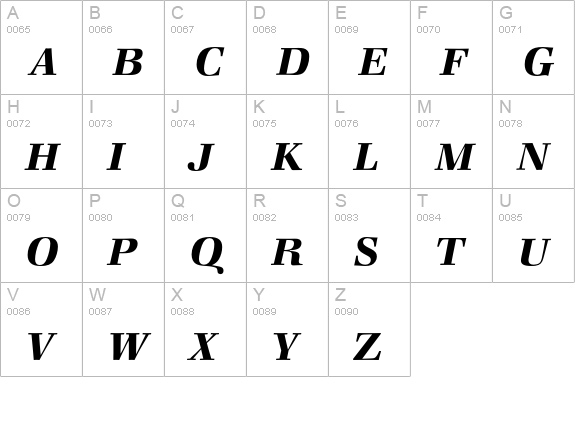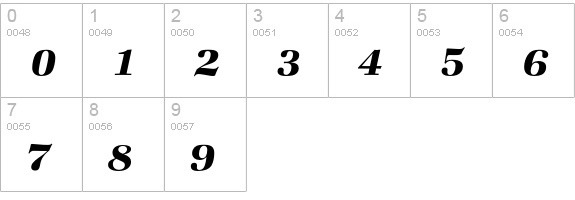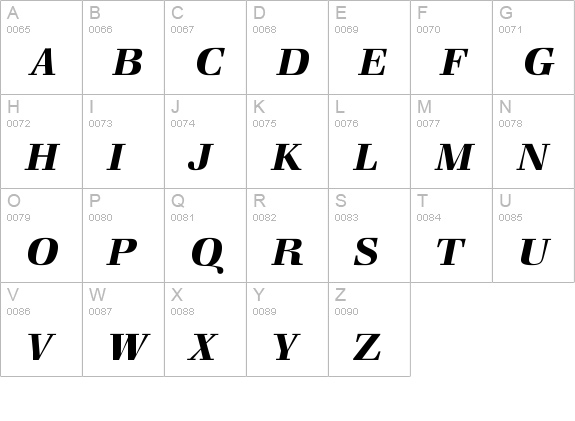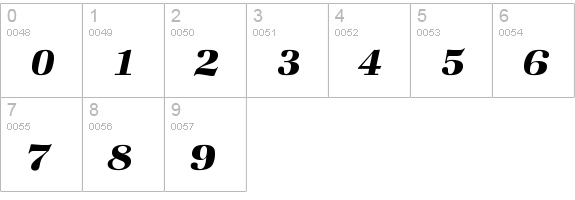
ZapfBookEF-DemiItalic font is a stylish and elegant typeface that exudes sophistication and charm. With its unique combination of boldness and grace, this font is perfect for adding a touch of class to any design project. The slanted italic style adds a dynamic flair, making text stand out with a sense of dynamism and energy. What sets ZapfBookEF-DemiItalic font apart is that it is not only visually striking but also versatile and practical. Whether you're creating a poster, invitation, or logo, this font will bring a touch of professionalism and creativity to your work. Best of all, ZapfBookEF-DemiItalic font is available for free download at FontsMarket.com. Take advantage of this incredible offer and add this stunning font to your collection today. Let your creativity shine with ZapfBookEF-DemiItalic font!